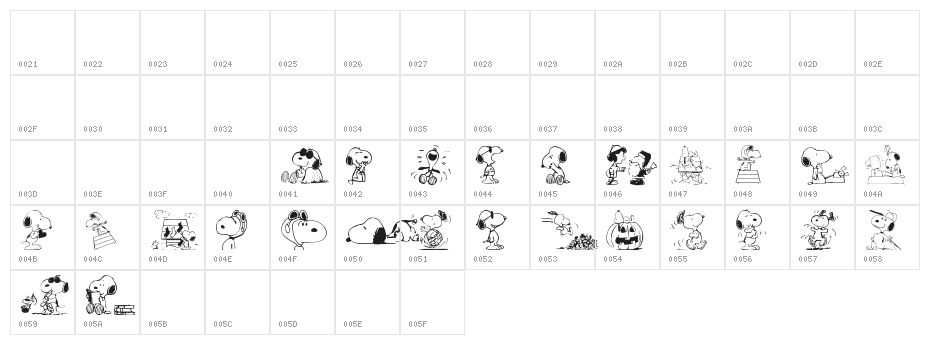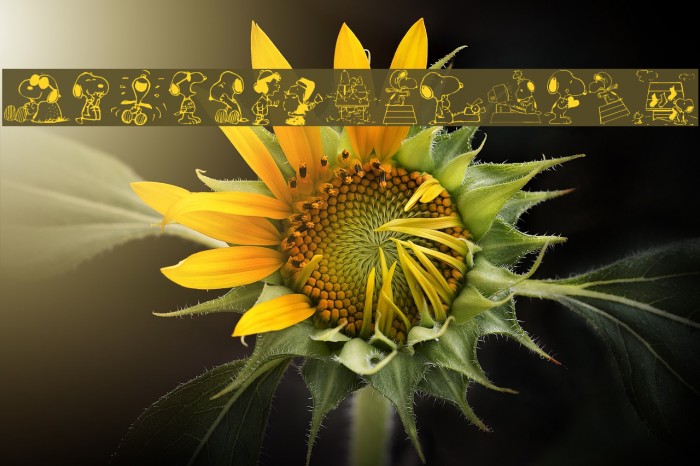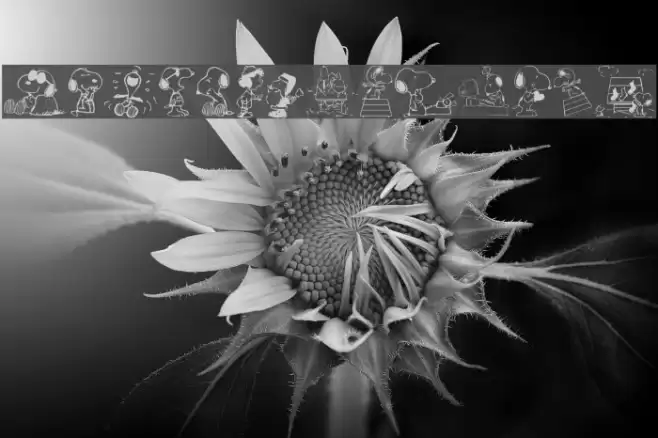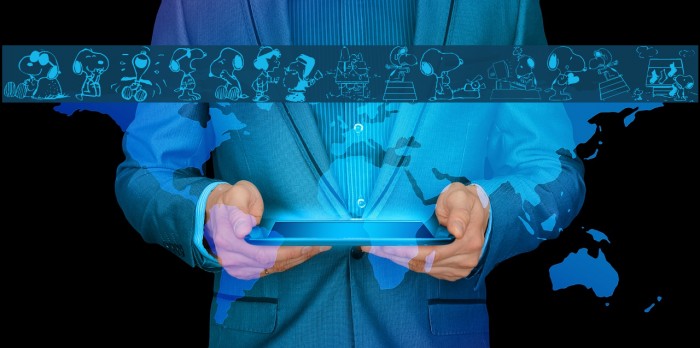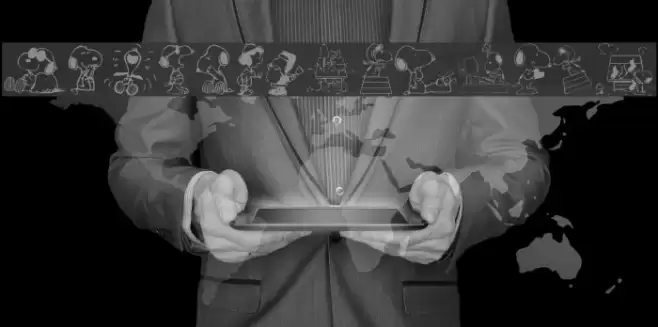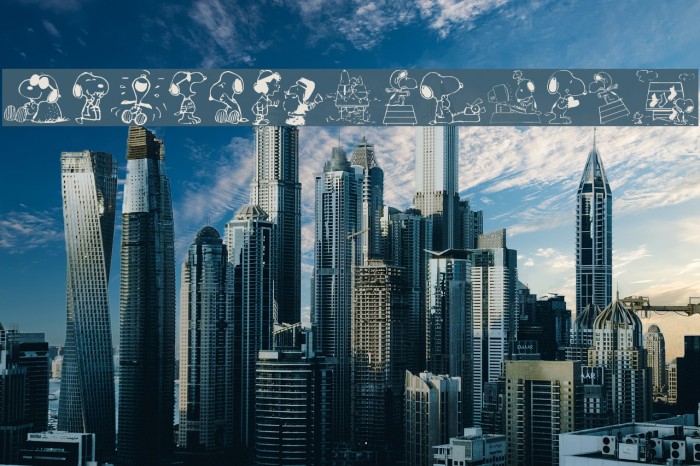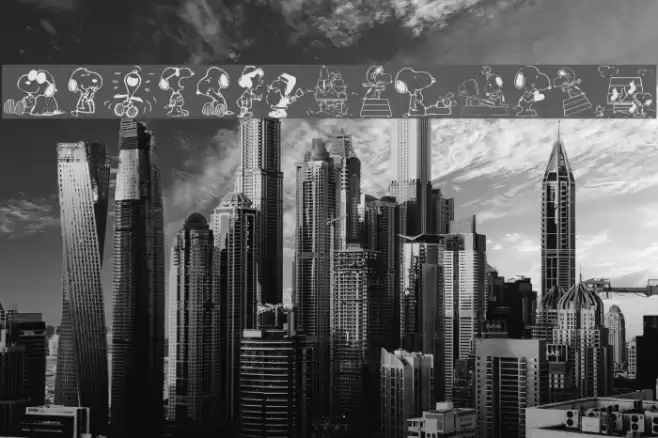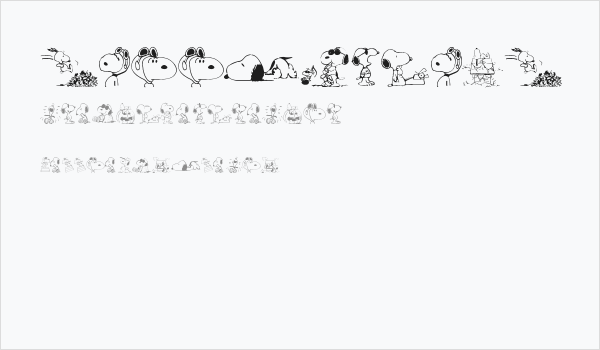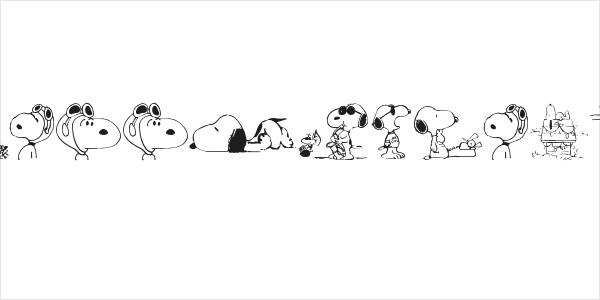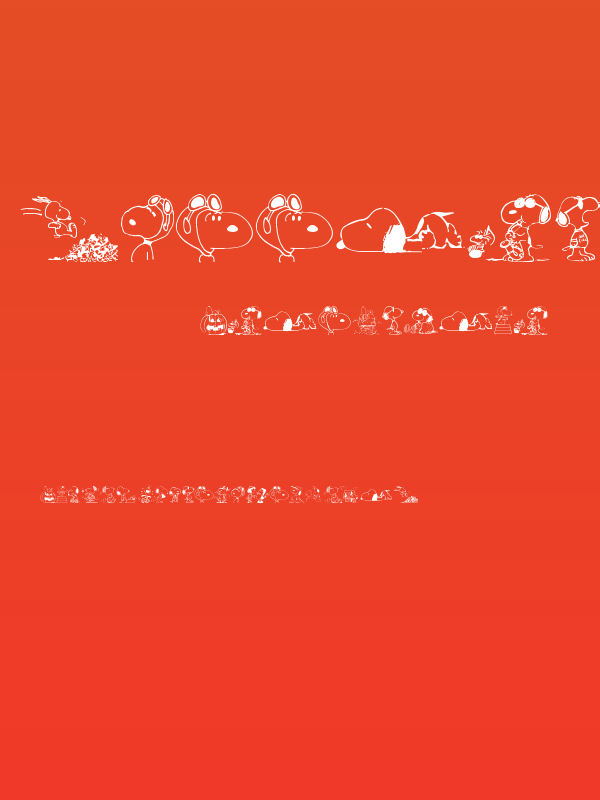
Snoopy Dings Font
Snoopy Dings Description
A decorative dingbat font featuring various cartoon illustrations of Snoopy and other Peanuts characters in different poses and scenes, rendered in a hand-drawn, comic strip style with playful and whimsical expressions.
| Overall Style | Playful, Comic, Decorative |
| Use Case | Decorative elements, Themed designs, Not for text setting |
| Proposed Projects | Children's party invitations, comic-themed posters, playful branding, scrapbooking, greeting cards. |